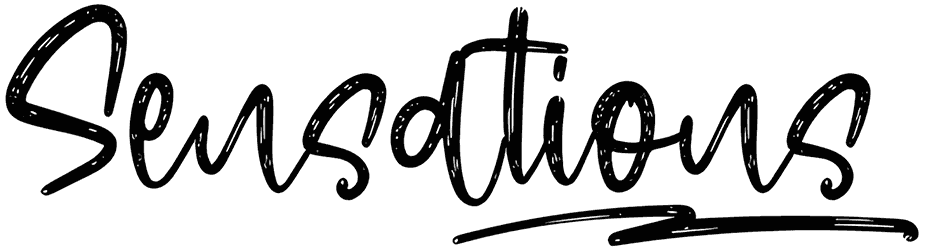
Sensations Font
To have a notable modern design with realistic words, you can use an attractive item like this brush font. With a smooth hand-lettering style, Sensations font could bring a cool urban vibe to your creative layout. Place this script font on your intended designs, namely postcards, banners, tattoos, or the like, and show off your creativity.
Font By Alghul